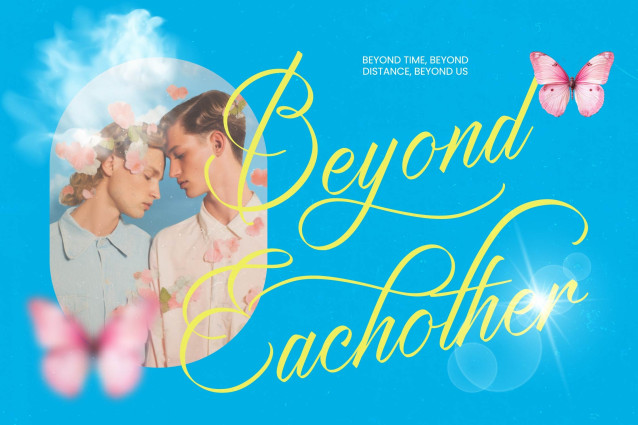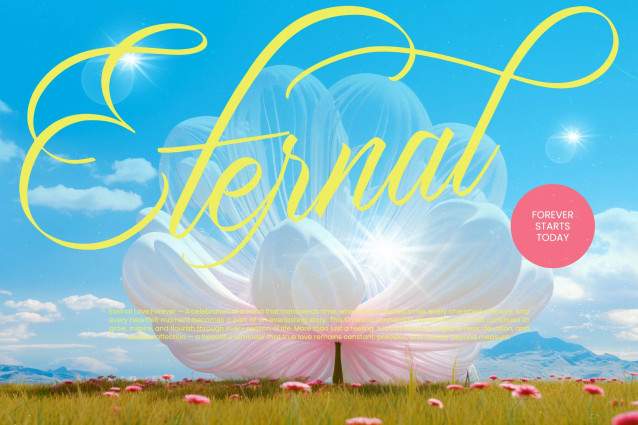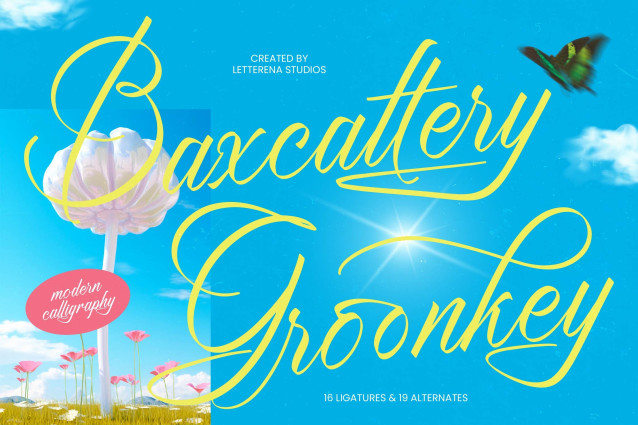
Baxcattery Groonkey – Modern Calligraphy
Elevate your creative projects with a touch of unmatched refined elegance. The Baxcattery Groonkey – Modern Calligraphy typeface captures a stunning handcrafted aesthetic through its fluid, rhythmic strokes and expressive flourishes. Designed by Letterena Studios, this font offers a perfect balance between contemporary script and classic artistry, ensuring that every word commands attention with effortless grace and high-end visual impact.
Perfect for luxury branding and expressive visual storytelling, this typeface is a premier choice for premium packaging, wedding invitations, and editorial layouts. Whether you are crafting a boutique identity or upscale social media graphics, Baxcattery Groonkey – Modern Calligraphy serves as a sophisticated statement piece. Its natural flow and dynamic alternates make it perfect for logo design where a bespoke personal touch is paramount for success.